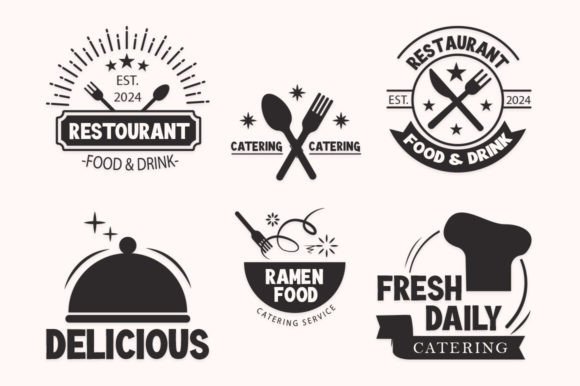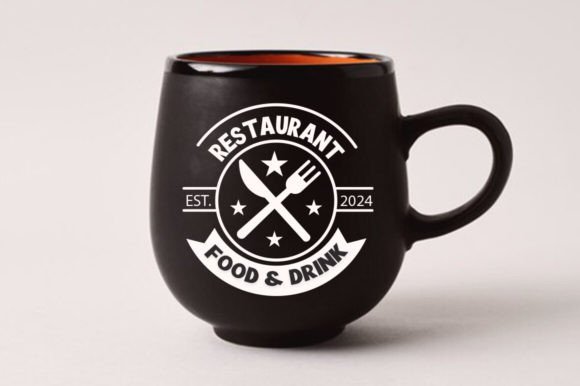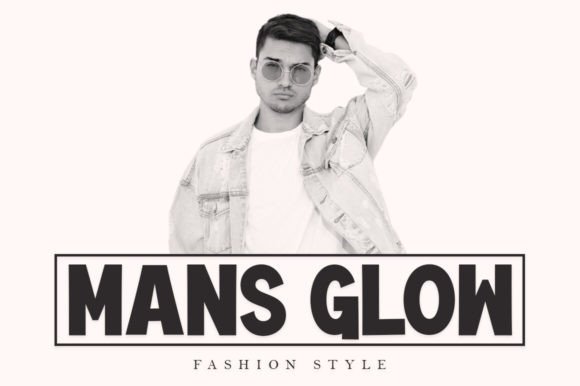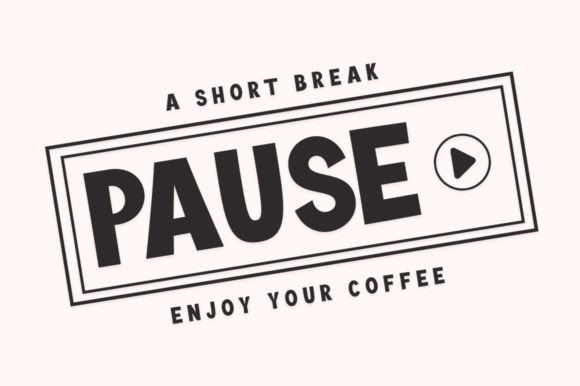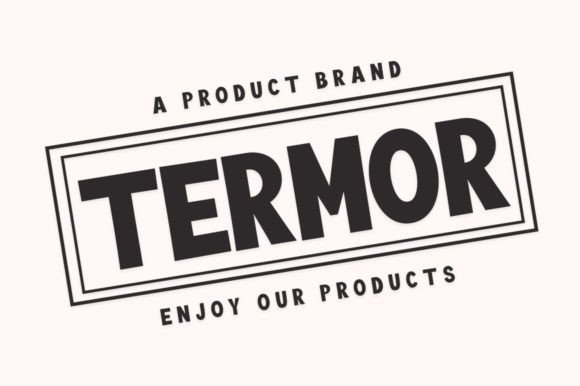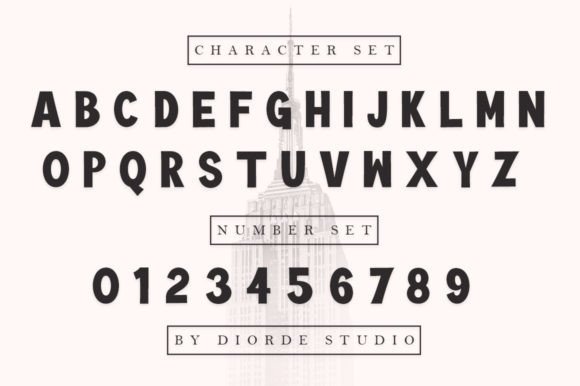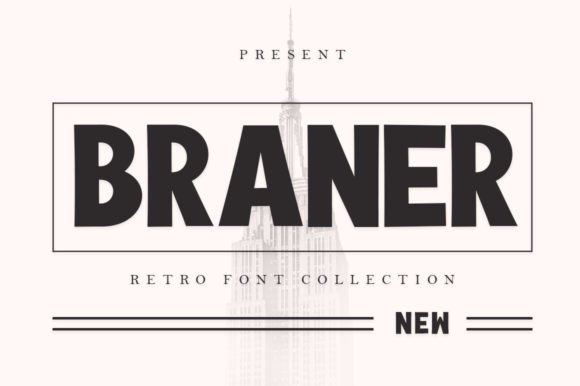
The Designer’s Delight: Braner Font
I’ll never forget the time I was working on a vintage-inspired branding project for a client, and I was struggling to find the perfect font to capture the essence of the 1950s. The client wanted something that would transport their customers back in time, but I was stuck in a font rut. That’s when I stumbled upon Braner Font, and it was love at first sight! 💫
Braner is a vintage display font that will brighten up any of your designs. Add it with confidence to your projects, and you’ll love the results. In this article, we’ll dive into the world of Braner Font, exploring its features, how to use it, and some similar fonts you might enjoy.
So, what makes Braner Font so special? Let’s take a closer look:
- ✨ Unique Character: Braner Font has a distinct vintage flair that’s hard to find in modern fonts.
- ✅ Highly Versatile: It can be used for a wide range of projects, from branding and advertising to packaging and signage.
- 💥 Attention-Grabbing: The font’s bold and playful design is sure to grab attention and make your designs stand out.
Of course, no font is perfect, and Braner Font has a few small quirks:
- 🤔 Limited Legibility: Braner Font is best used for display purposes, as it can be difficult to read at smaller sizes.
- ⚠️ Glyph Limitations: While the font has a range of glyphs and alternates, it may not have every character or symbol you need.
Braner Font comes with a range of OpenType features and glyphs that can add more depth and interest to your designs. Here are a few tips for exploring these features:
- Stylistic Alternates: Experiment with different stylistic alternates to find the perfect look for your design.
- Glyphs: Use glyphs to add more visual interest to your design, such as flourishes or swashes.
- Ligatures: Use ligatures to create more cohesive and visually appealing text.
The Backstory Behind Braner Font
Braner Font was designed with the goal of capturing the essence of vintage typography. The designer, inspired by classic signage and advertising from the 1950s, set out to create a font that would transport users back in time. With its bold, playful design and range of OpenType features, Braner Font is the perfect choice for designers looking to add a touch of nostalgia to their projects.
| What is Braner Font best used for? | Braner Font is best used for display purposes, such as headings, titles, and signage. |
| Is Braner Font easy to read? | Braner Font can be difficult to read at smaller sizes, making it best suited for display purposes. |